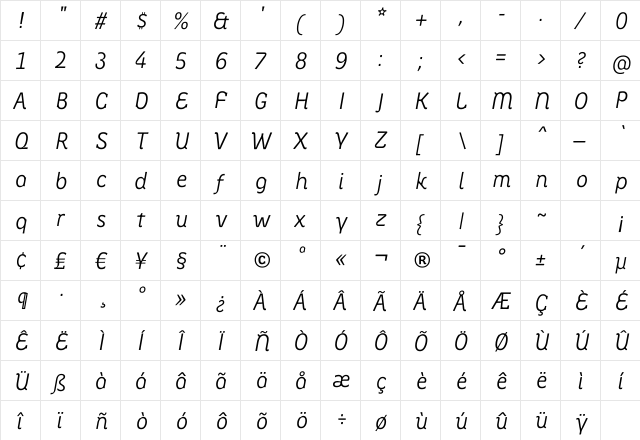
Spotka AlternateRegular Italic Regular
Design Context for Spotka AlternateRegular Italic Typeface
Spotka AlternateRegular Italic offers clean, dependable letterforms without strong stylistic allegiance, making it a practical choice for designers who need flexibility. Its italic angle brings a sense of urgency and motion to the letterforms.
Pro Tip: Try Spotka AlternateRegular Italic for annotation and caption copy alongside an upright companion — the contrast in angle creates a dynamic but ordered typographic system.